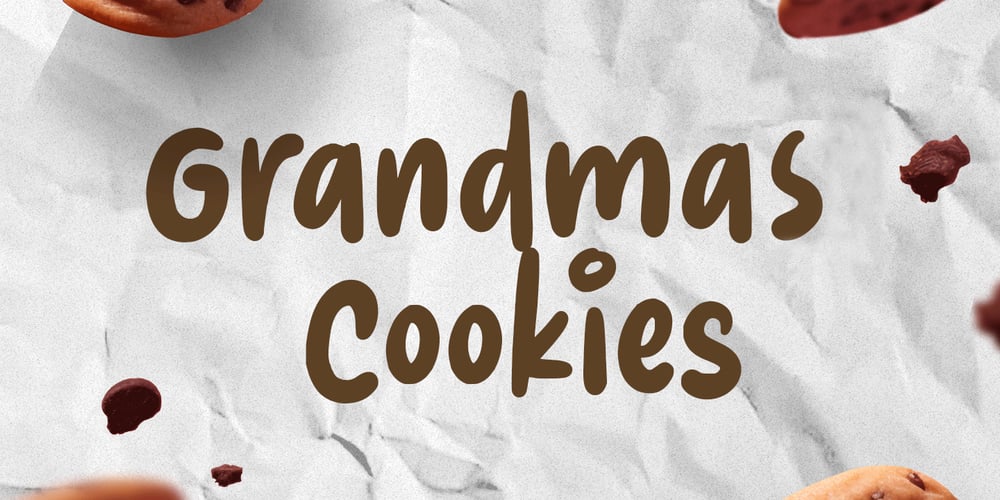
Grandmas Cookies Font Family was designed by Novitasari Romli and published by Novitype. Grandmas Cookies contains 1 styles and family package options. Say hello to ‘Grandmas Cookies’, a playful handwriting font with a bunch of features! This font is elegant and bouncy, with whimsical curves and a natural hand-drawn style that will make your designs more fun and cheerful! Perfect for posters, headlines, logos, print designs, quotes, book covers, and anything else that needs a cute touch.Grandmas Cookies includes uppercase and lowercase letters, numbers, symbols, stylistic alternates, ligatures, and multilingual support. Get your Grandma’s Cookies now!